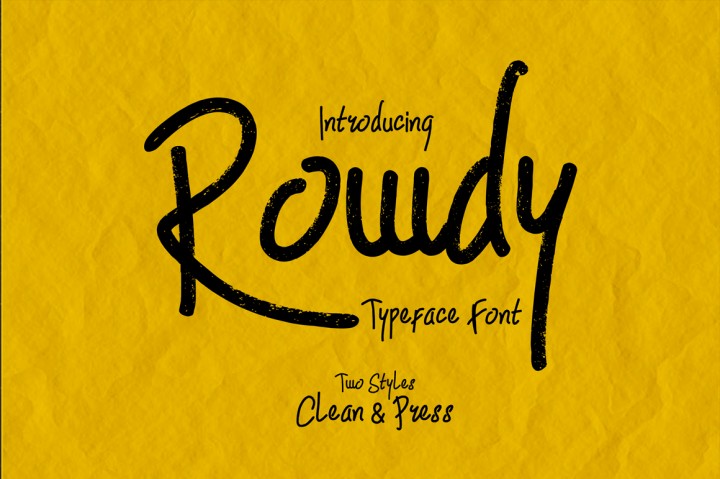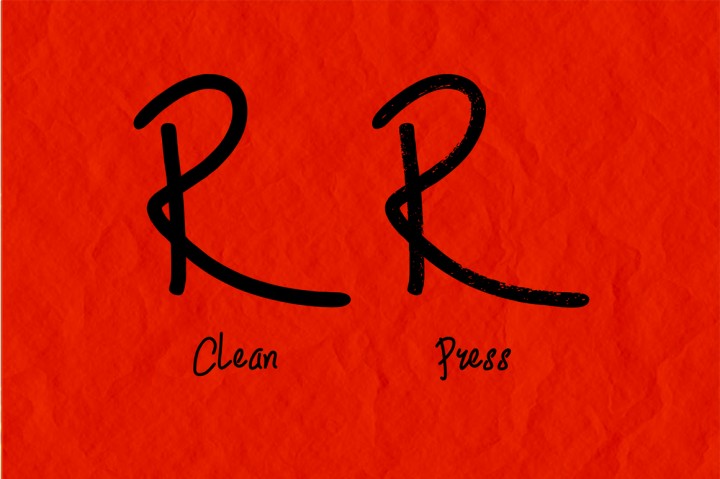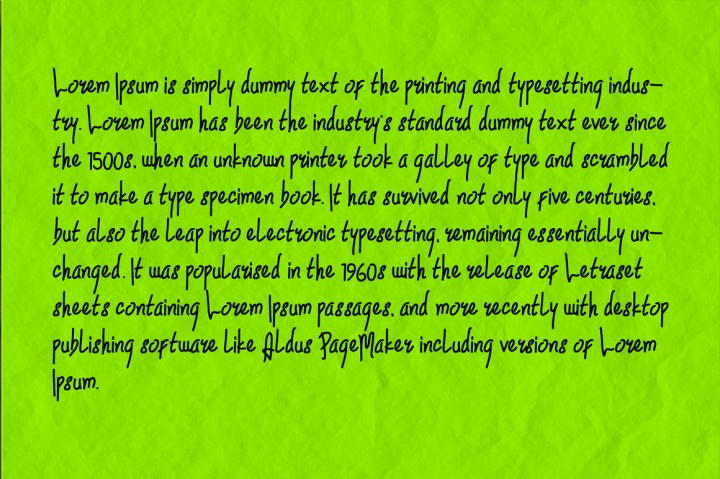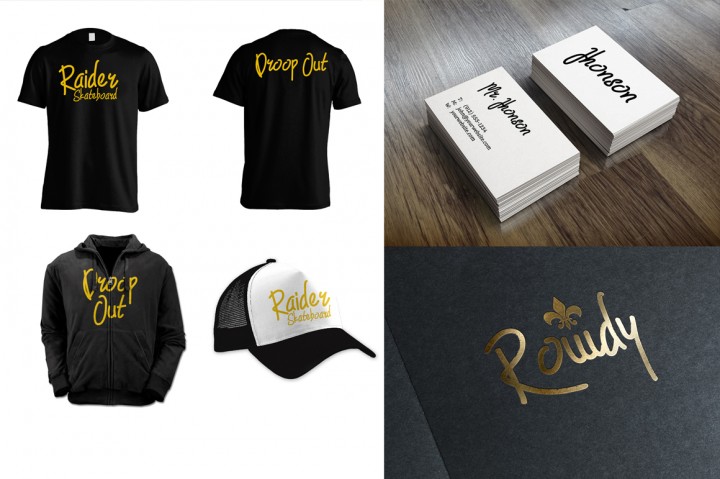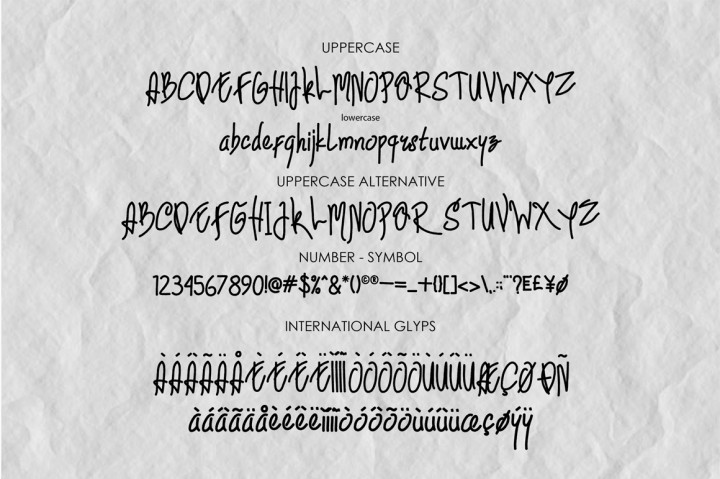
HomeScript FontsRowdy Font Script Fonts Rowdy Font FacebookXPinterestWhatsApp Rowdy Font Poster 2 Rowdy Font Poster 3 Rowdy Font Poster 4 Rowdy Font Poster 5 About Rowdy Font Rowdy is a modern handwritten marker font created by the madeDeduk foundry. DOWNLOAD ON CREATIVE FABRICAThis font is sold and delivered by Creative Fabrica. Font Canyon may earn a commission if you buy through this link. People also explored Life of Sachi Font Gilligan Shutter Font Egertan Font Dona Freddie Whippersnapper Font Qournatte Font Salt And Spices Mono Brigitte Eigner Font Mommyday Font 268 0 TagsRowdy Font Previous articlePluma FontNext articleChandry Font LEAVE A REPLY Cancel reply Comment: Please enter your comment! Name:* Please enter your name here Email:* You have entered an incorrect email address! Please enter your email address here Website: Save my name, email, and website in this browser for the next time I comment. Personal Use Free Lollipop Melody Personal Use Free Read more about this font Ancient Script Personal Use Free Read more about this font Zero Hour Personal Use Free Read more about this font Bosk Personal Use Free Read more about this font BLOG How to Install and Use Fonts on Windows, macOS, and Web Projects How to Install and Use Fonts on Windows, macOS, and Web Projects Fonts are a crucial part of design and branding. Whether you’re designing a... Top 10 Handwritten Fonts That Elevate Your Designs The 10 Best Handwriting Fonts to Add Personality to Your Designs Top 7 Google Fonts Alternatives for Faster and Privacy-Friendly Web Design (2025)